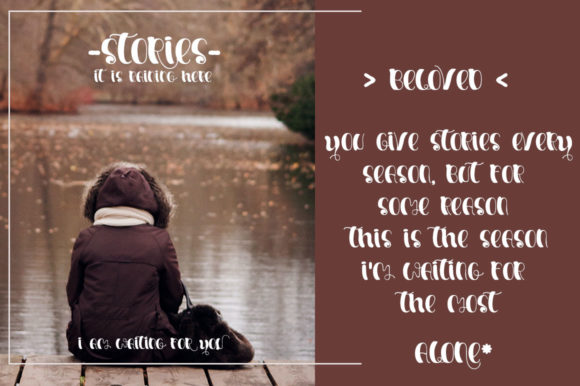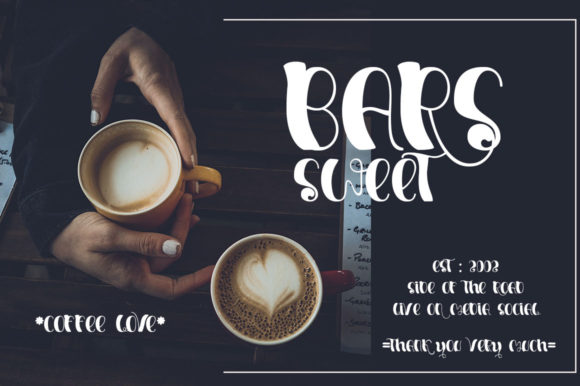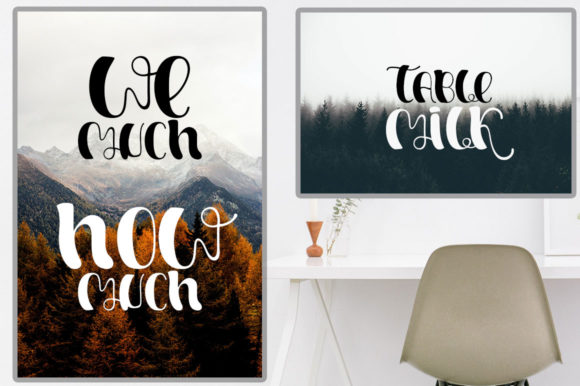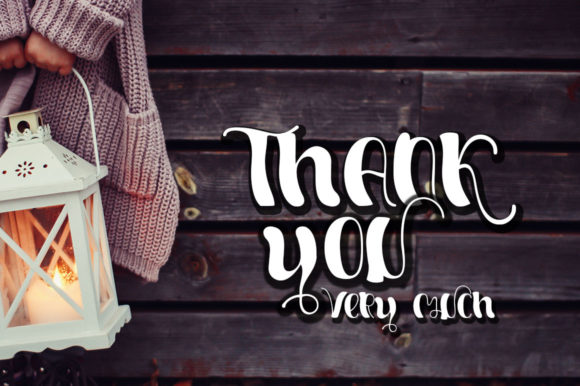
Welcome Autumn Font
About Welcome Autumn Font
Welcome Autumn is a sweet and friendly handwritten font. Its natural and unique style makes it incredibly fitting to a season of designs. The only limit is your imagination!